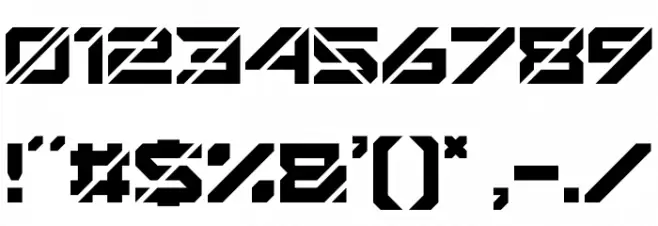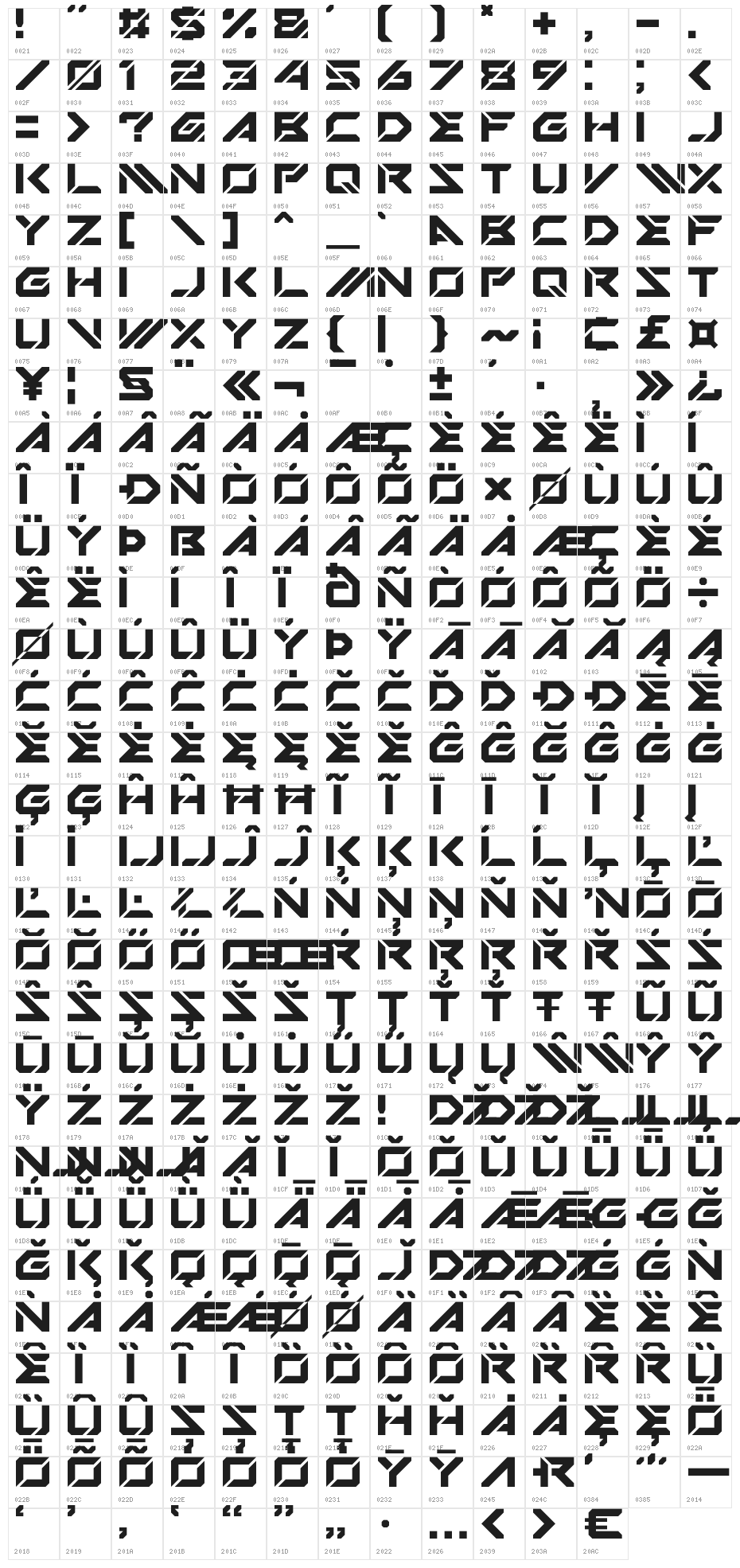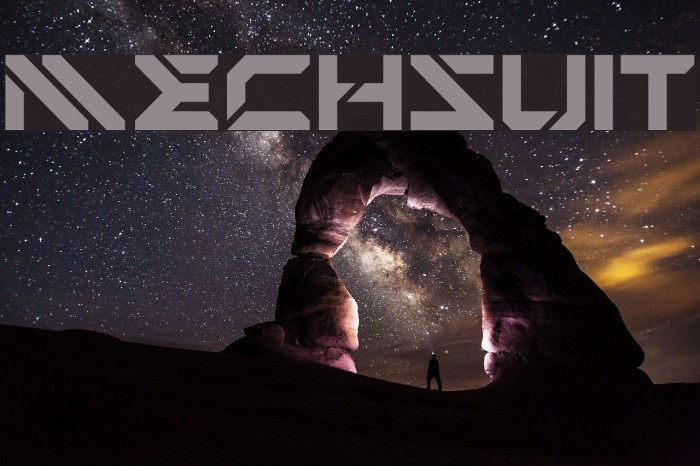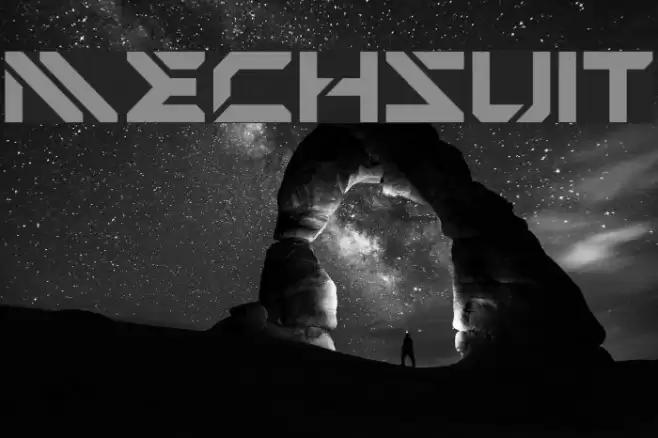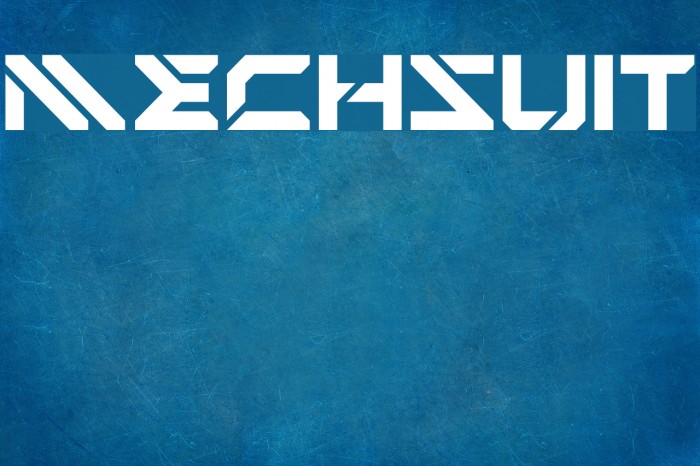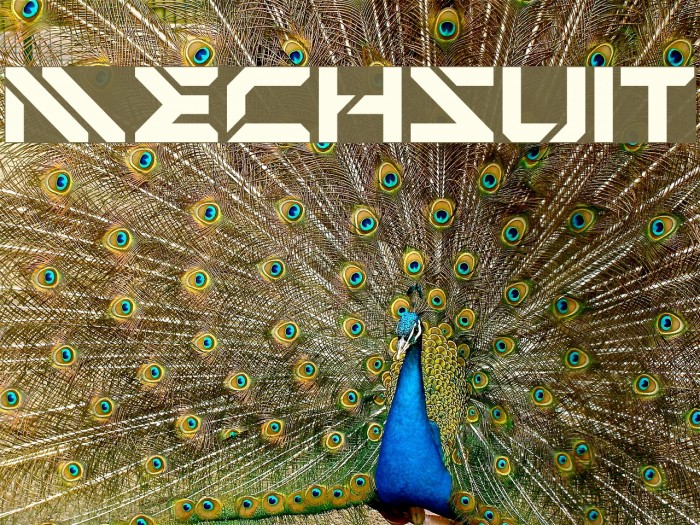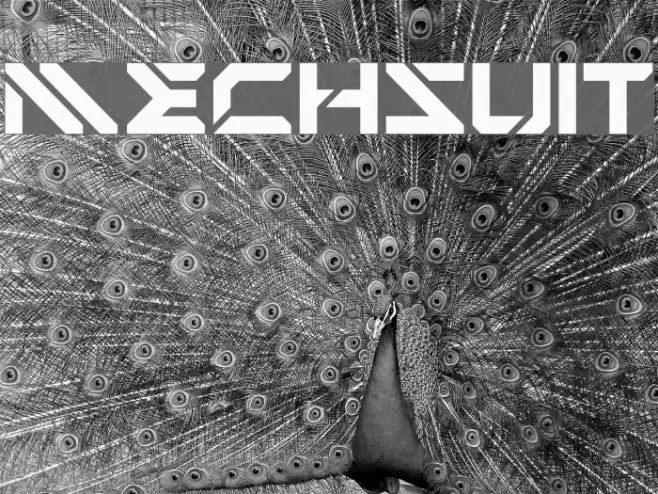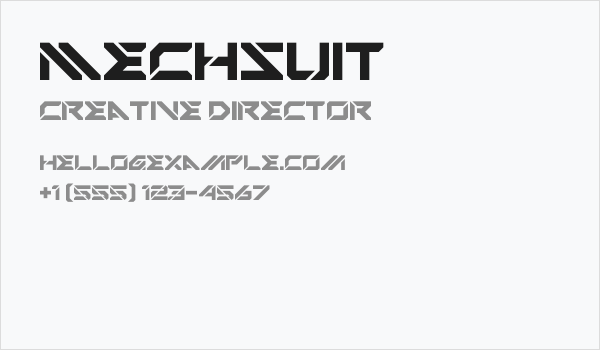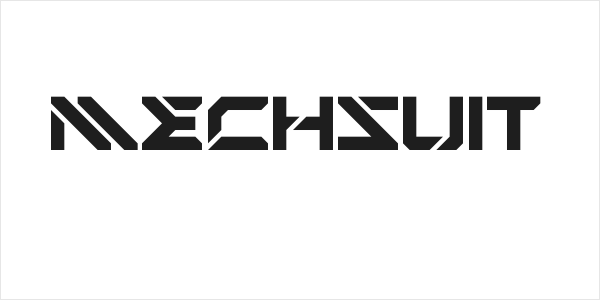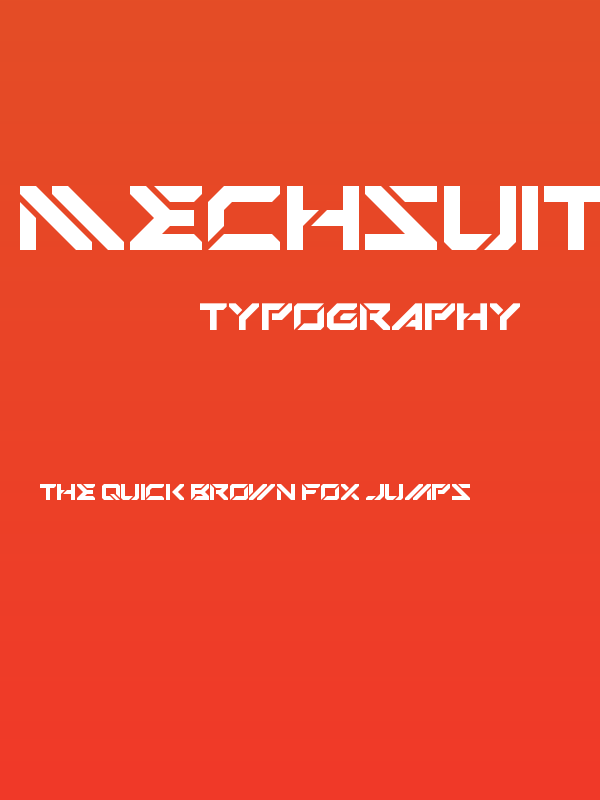
Mechsuit Font
Mechsuit Description
This font features a futuristic and angular design, characterized by sharp edges and geometric shapes. The letters are constructed with bold, solid strokes that create a sense of strength and modernity. Each character is distinct, with unique cutouts and angles that give the font a mechanical and robotic feel. The numbers and special characters follow the same design principles, ensuring consistency across the entire typeface. This font is ideal for projects that require a bold, tech-inspired aesthetic, such as video game titles, sci-fi movie posters, or technology branding.
| Proposed Projects | Ideal for video game titles, sci-fi movie posters, technology branding, and futuristic designs. |